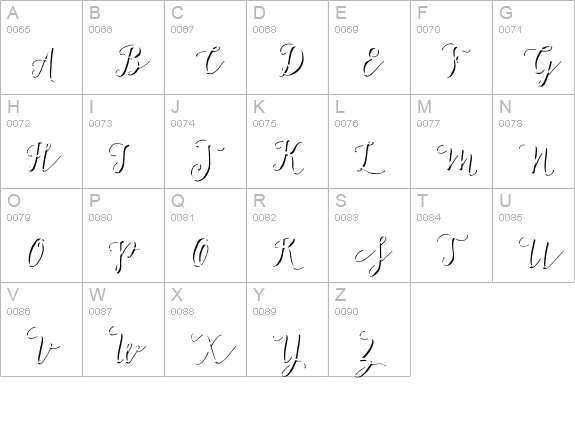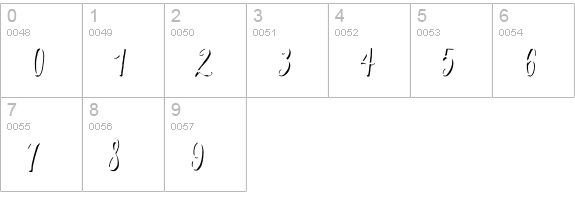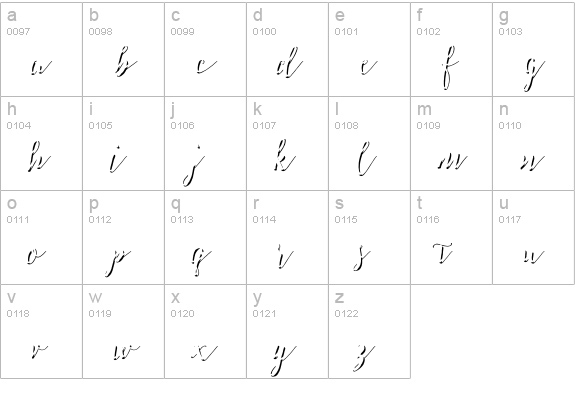
Salt & Spices Pro Shadow is a versatile and elegant display font that exudes a sense of sophistication and charm. Its unique shadow effect adds depth and dimension to any design, making it perfect for headings, logos, and other creative projects. This font is meticulously crafted with attention to detail, ensuring a professional and polished look. The best part? Salt & Spices Pro Shadow is available for free download at FontsMarket.com. This means you can easily access this premium font without any cost, making it a valuable addition to your font collection. Don't miss out on the opportunity to enhance your designs with the beauty and versatility of Salt & Spices Pro Shadow. Download it today and elevate your creative projects to the next level.